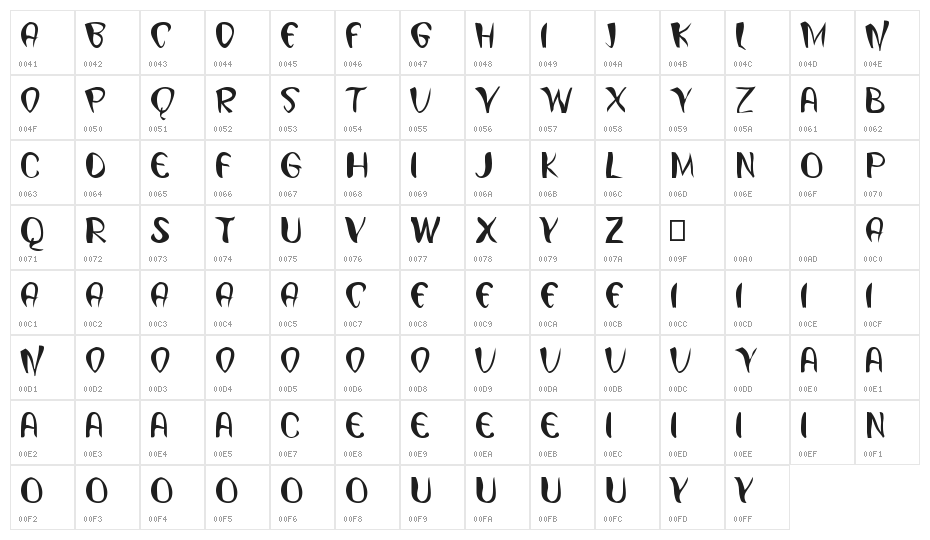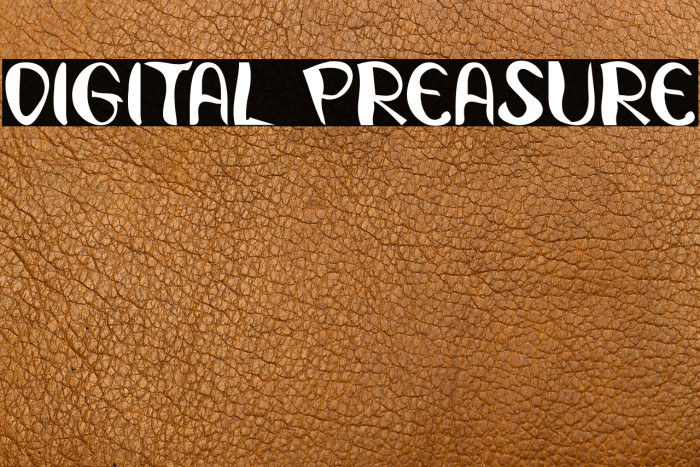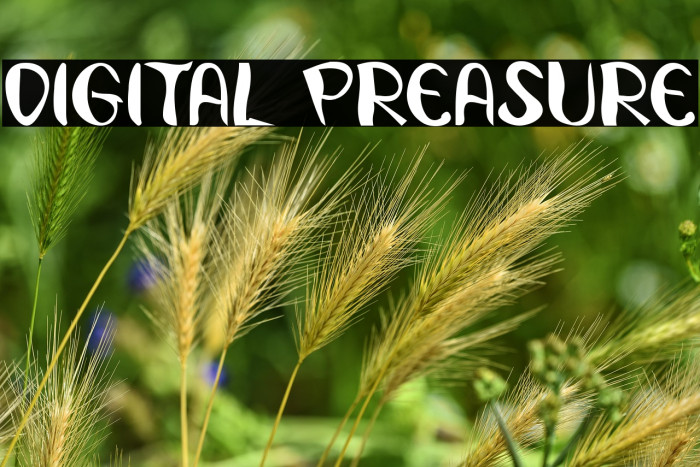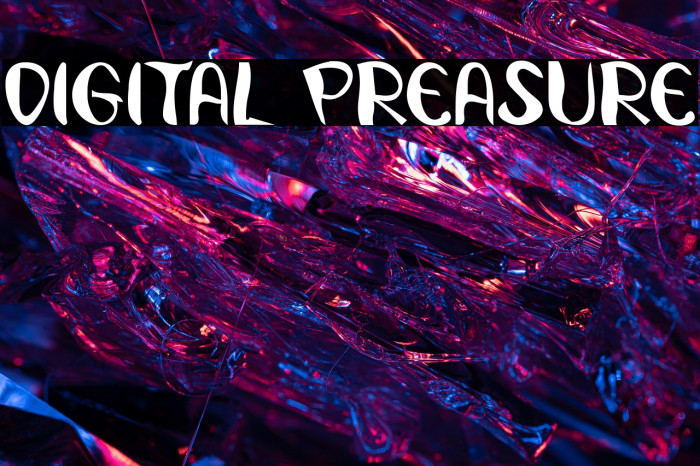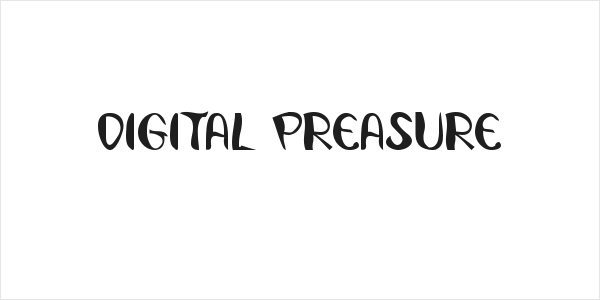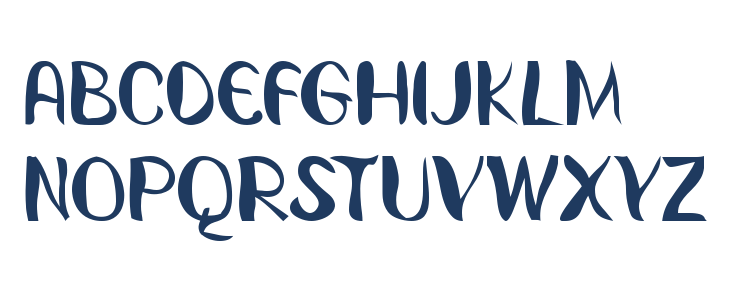
Digital Preasure Font
Digital Preasure Description
This font features a bold and dynamic style with a unique, artistic flair. The characters are crafted with a calligraphic influence, showcasing sharp, angular strokes and a sense of movement. The uppercase letters are particularly striking, with exaggerated curves and pointed edges that give the font a dramatic and expressive appearance. The lowercase letters maintain the same energetic style, ensuring consistency throughout the typeface. The numbers and special characters are designed to match the overall aesthetic, making this font suitable for creative and eye-catching designs.
| Proposed Projects | Ideal for posters, album covers, branding projects, and any design requiring a bold, artistic touch. |